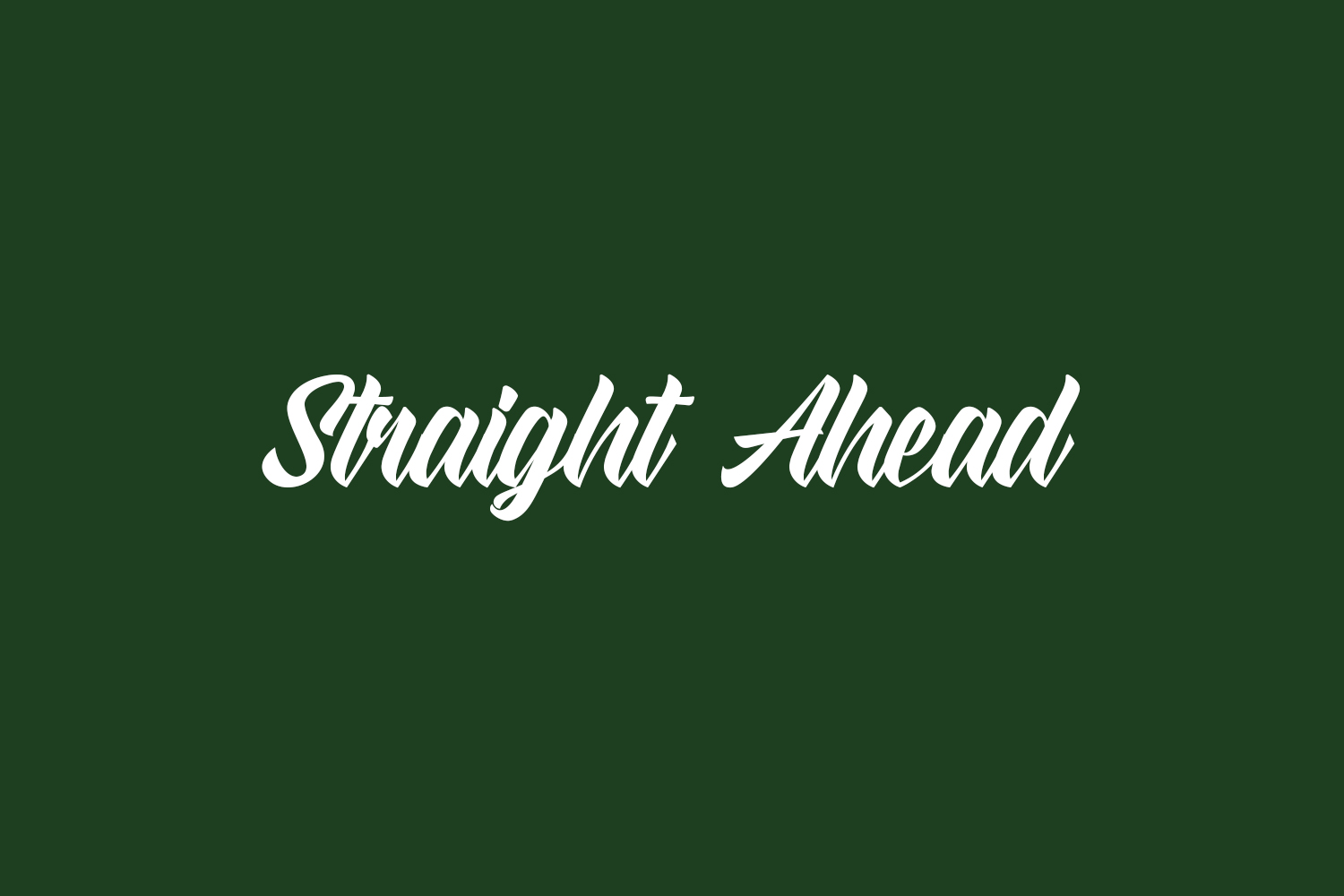
Introducing Straight Ahead Free Font, a stunning handwritten font that combines elegance with a contemporary flair. This versatile script font is the perfect choice for a wide range of applications, including branding, logotype design, and beyond. With its modern style and captivating appeal, Straight Ahead is sure to make a lasting impression on your projects. Straight Ahead Free Font is free for personal use only. Please purchase the full version for commercial use.